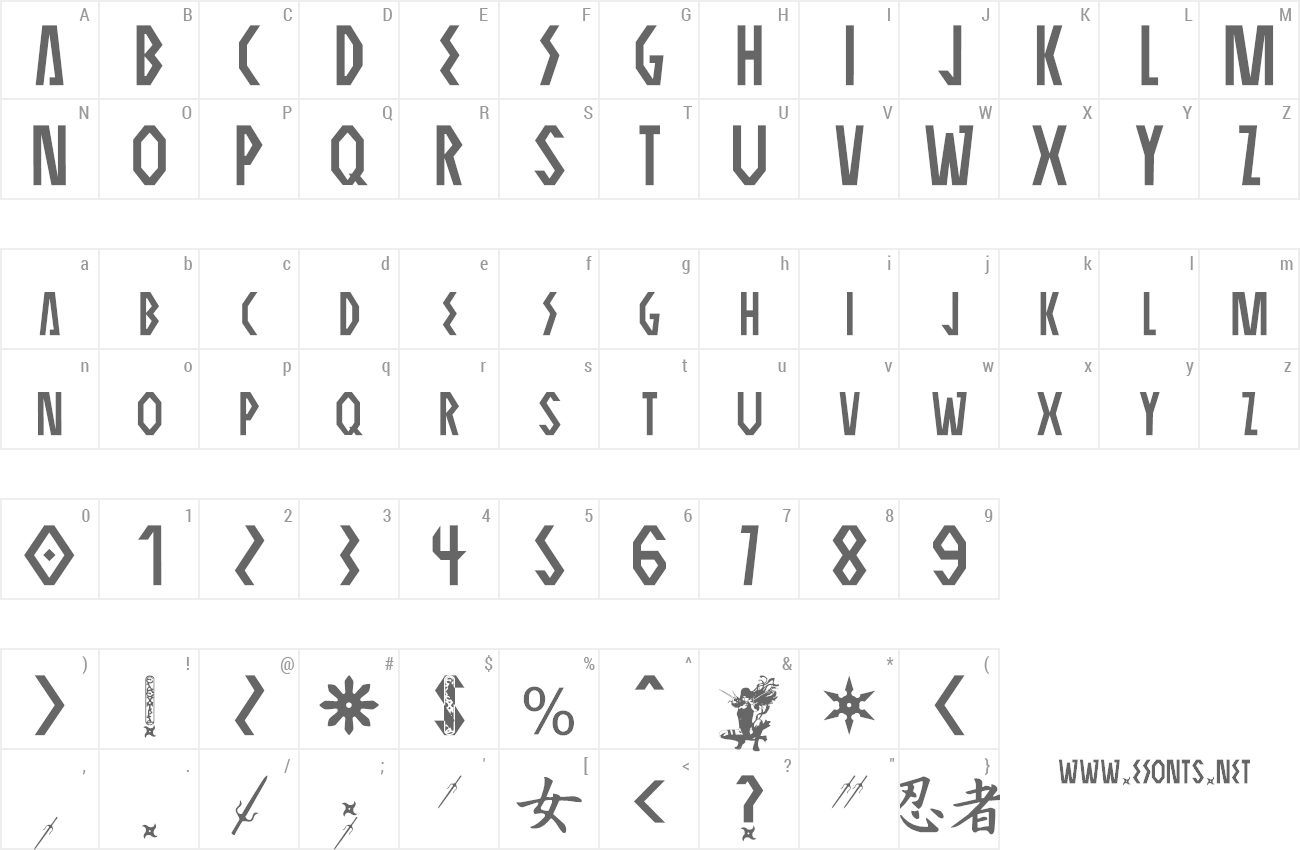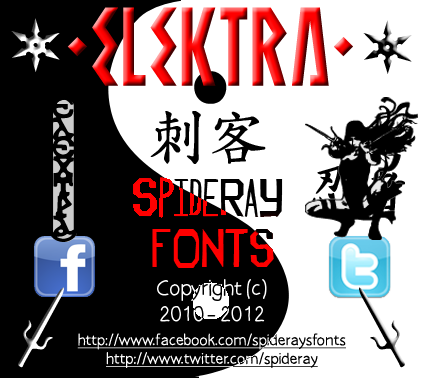
Elektra Natchios, usually referred to only by her first name Elektra is a kunoichi (female ninja assassin) of Greek descent. She wields a pair of bladed sai as her trademark this fan-font has been created to pay homage to Frank Miller's best-loved creations. I hope that I had done it justice enjoy the extra bonus glyphs. For the fully kerned OTF embeddable commercial version of this font please visit my Etsy Store @ http://etsy.me/2e9o6aO |